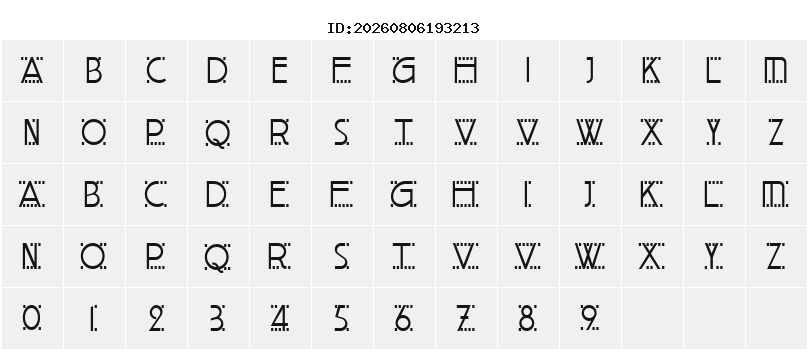
• Font Name: Olbrich Display NF
• Full Font Name: Olbrich Display NF
• Designer: Nick Curtis
About Olbrich Display NF.ttf
Olbrich Display NF.ttf is a modern, elegant sans-serif font designed for ultimate readability and visual harmony. Perfect for branding, headlines, web design, and print materials.